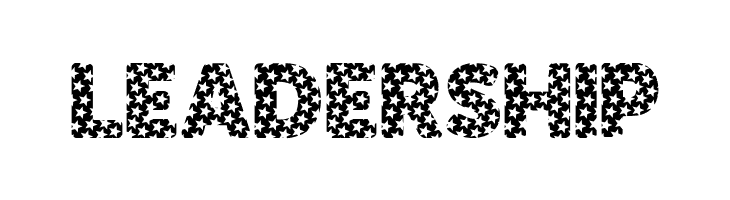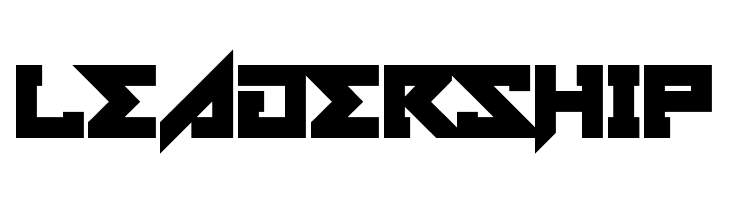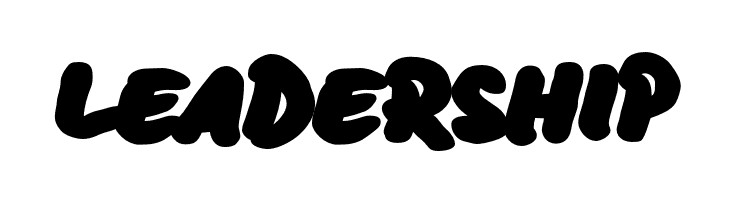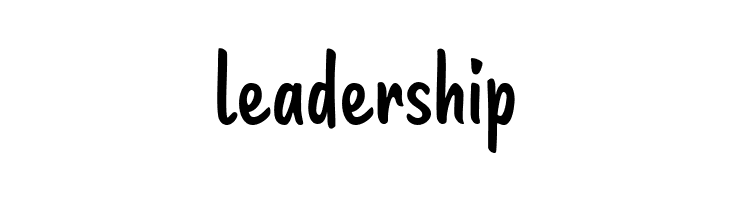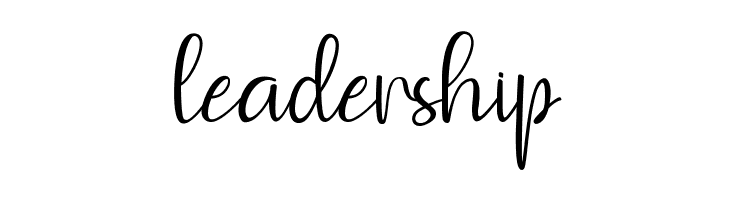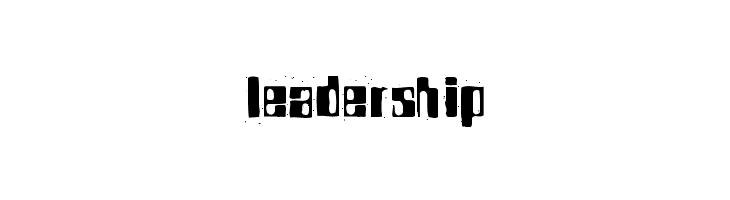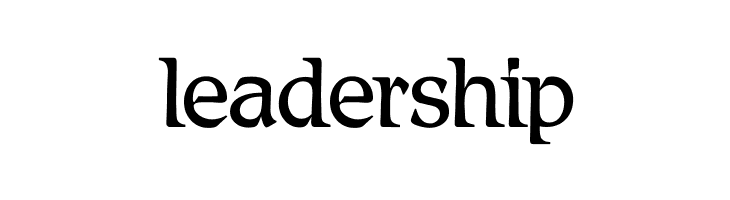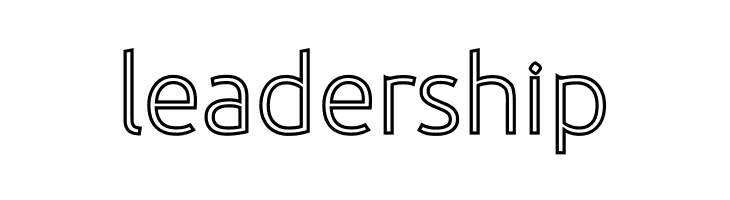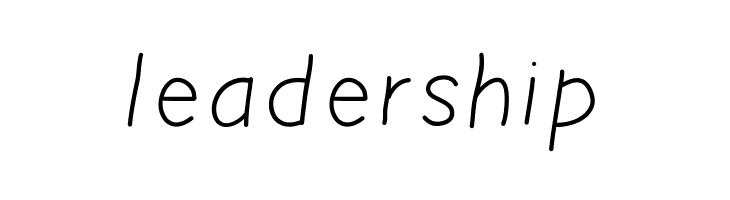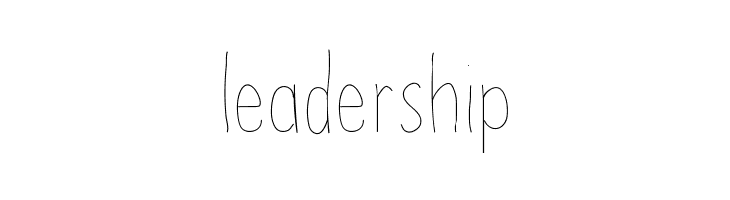
A bold, handwritten font with thick, rounded strokes and a playful style.
A playful, handwritten-style font with a casual and approachable feel.
An elegant, cursive script font with flowing, refined letterforms.
A classic serif font with modern elegance and refined letterforms.
An elegant script font with flowing, interconnected cursive letterforms.
A modern, geometric sans-serif font with clean lines and a minimalist aesthetic.
A bold, modern sans-serif font with clean lines and a slightly condensed style.
A classic serif font with a modern twist, offering elegance and versatility.
A refined and elegant font with thin, uniform strokes and generous spacing.
A playful, handwritten font with thin strokes and a casual style.
A thin, hand-drawn font with a whimsical and airy style.
A futuristic, angular font with bold, geometric shapes.
A bold, star-patterned decorative font ideal for playful designs.
A bold, aggressive font with sharp, angular lines and dynamic slant.
A bold, playful handwritten font with thick strokes and a casual style.
Expressive, doodle-style font made up of emotive faces and playful sketches.
A playful, handwritten font with flowing, whimsical strokes.
A playful, casual handwritten font with fluid, connected strokes.